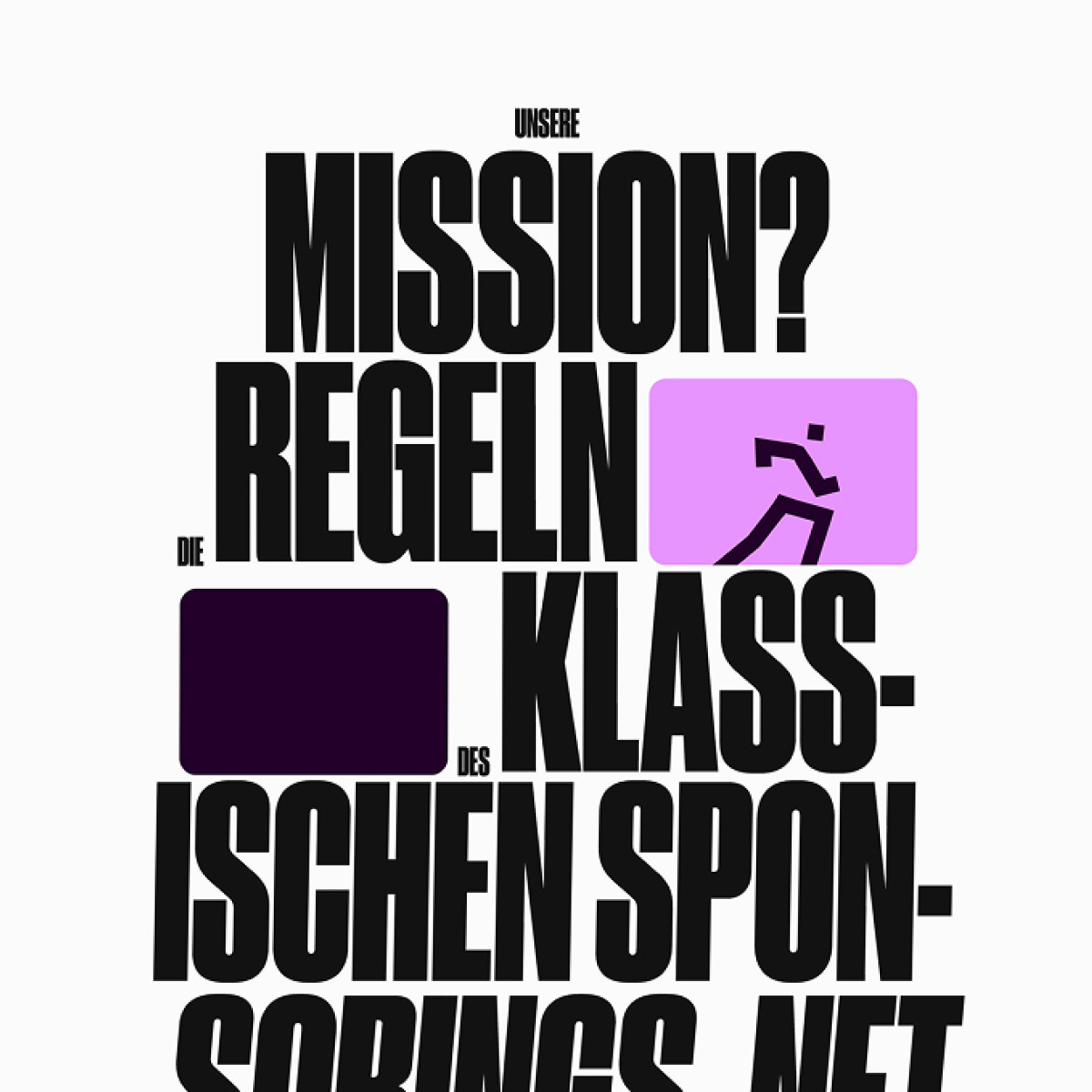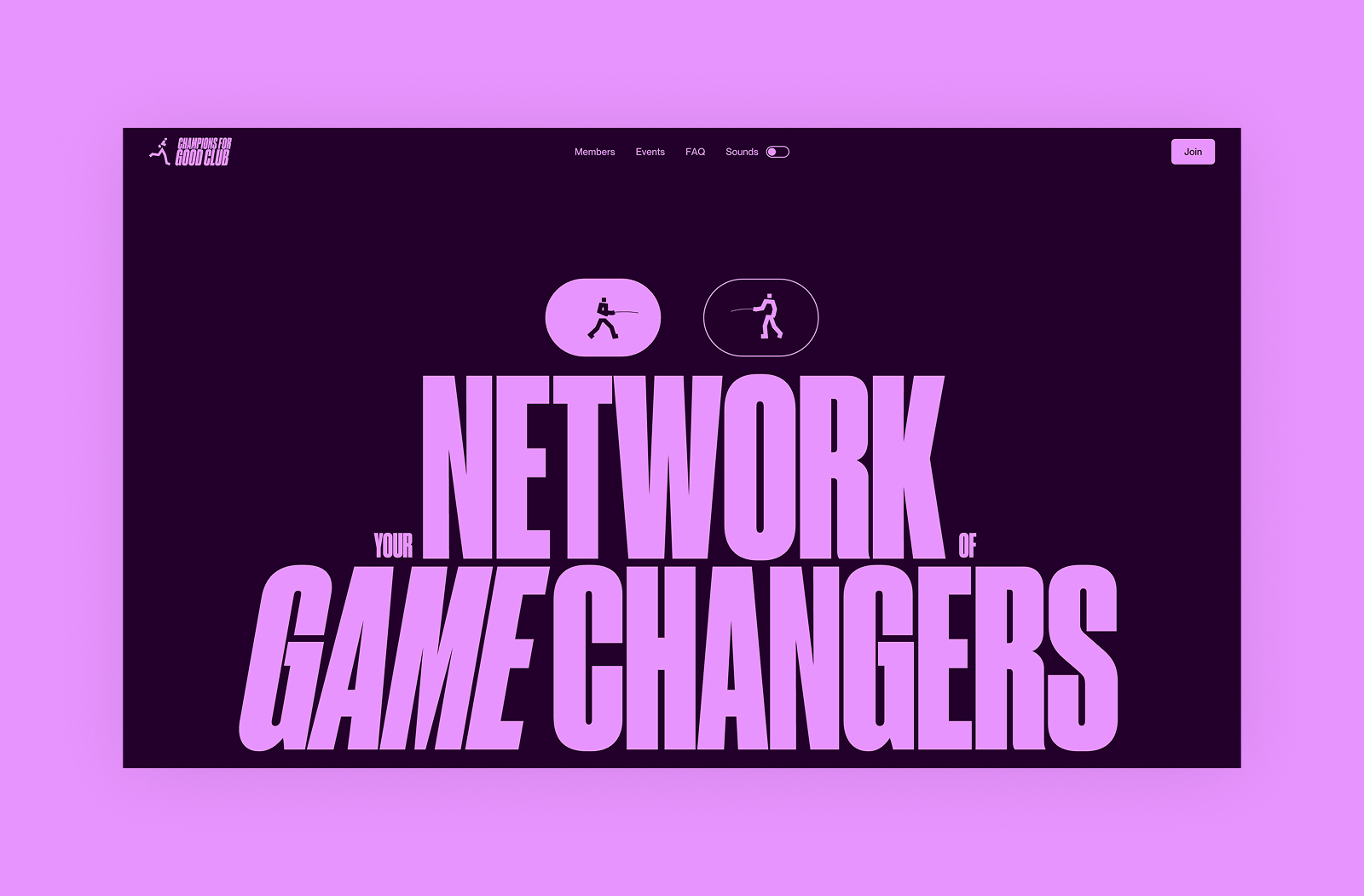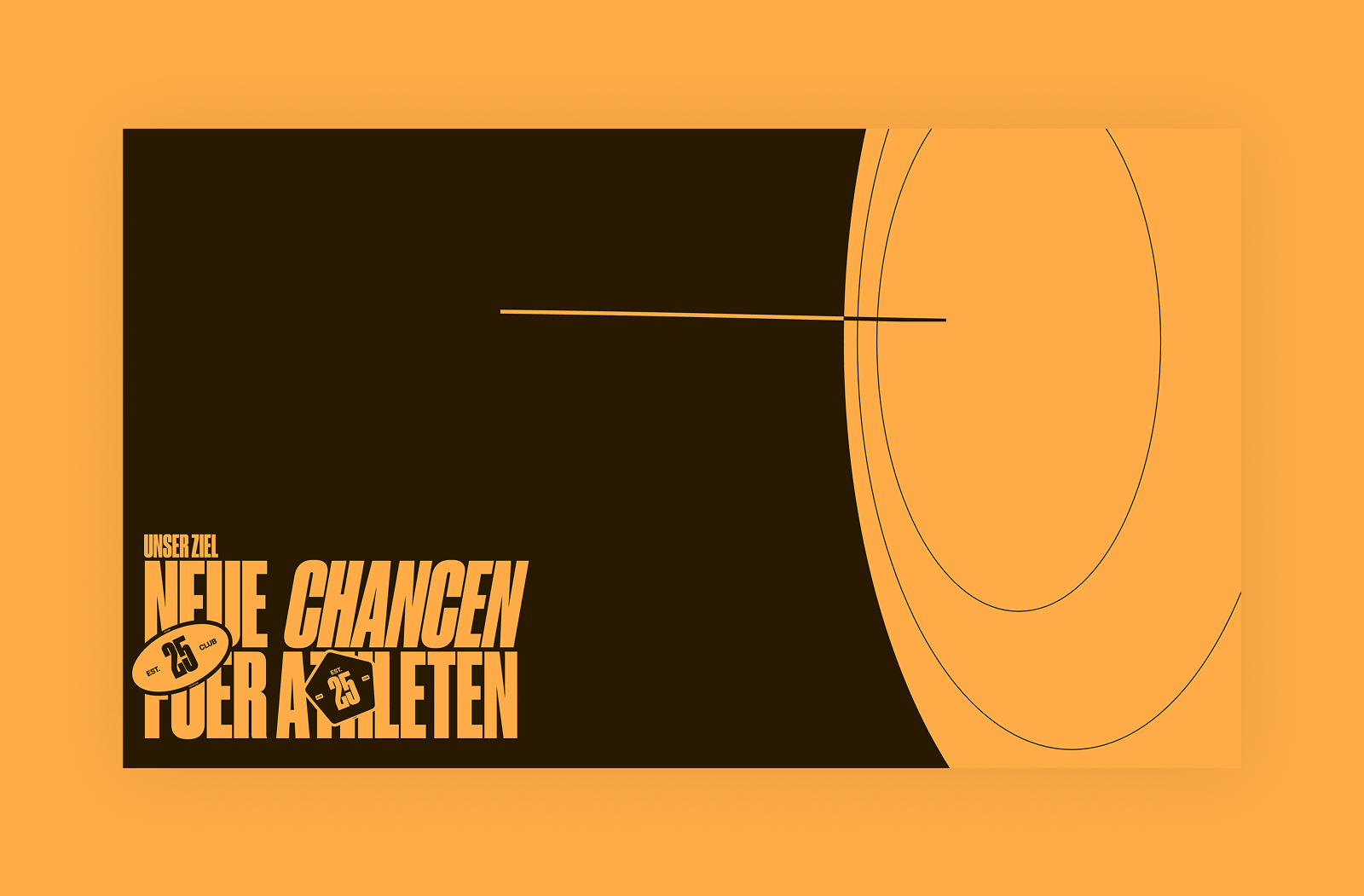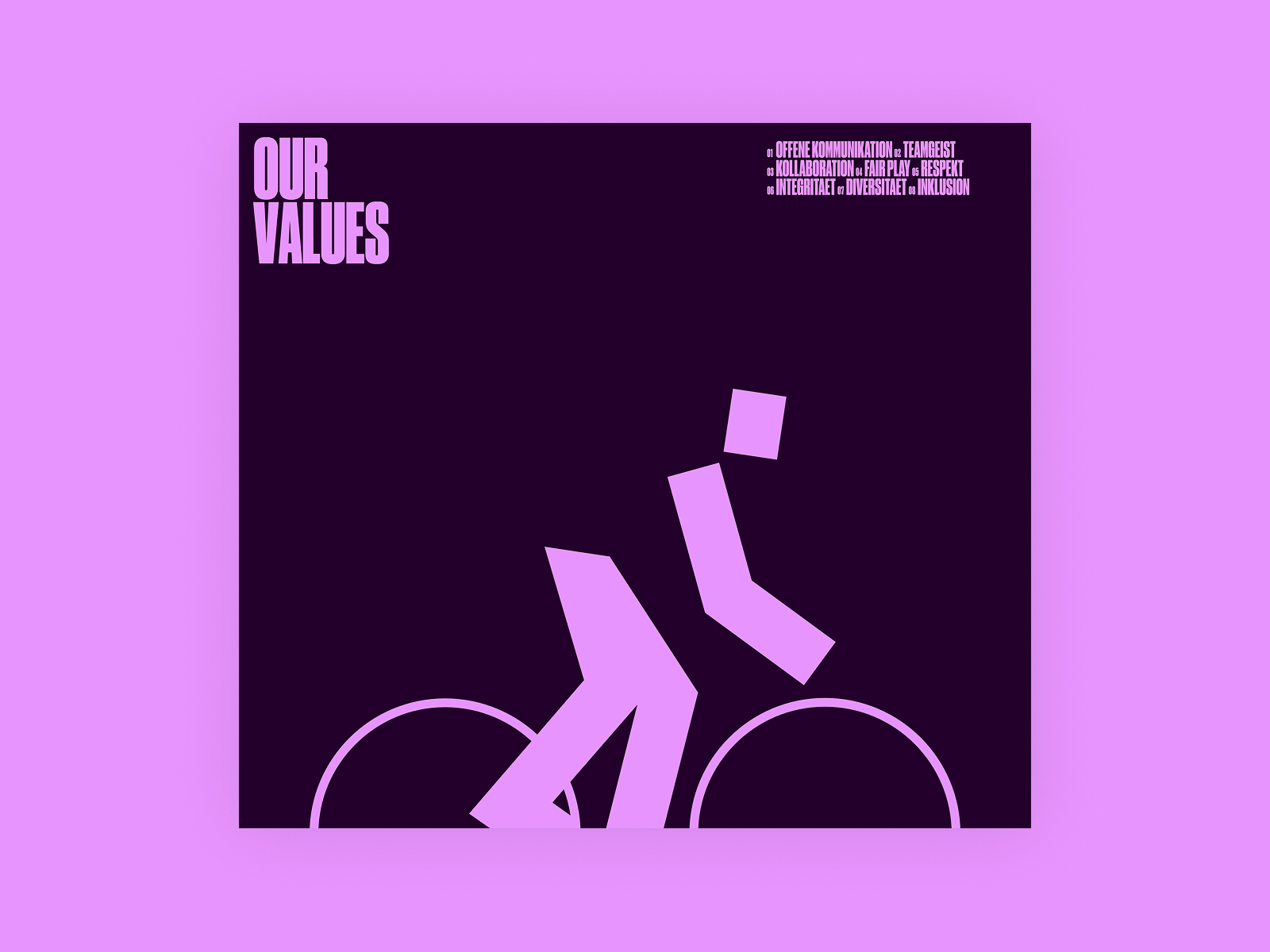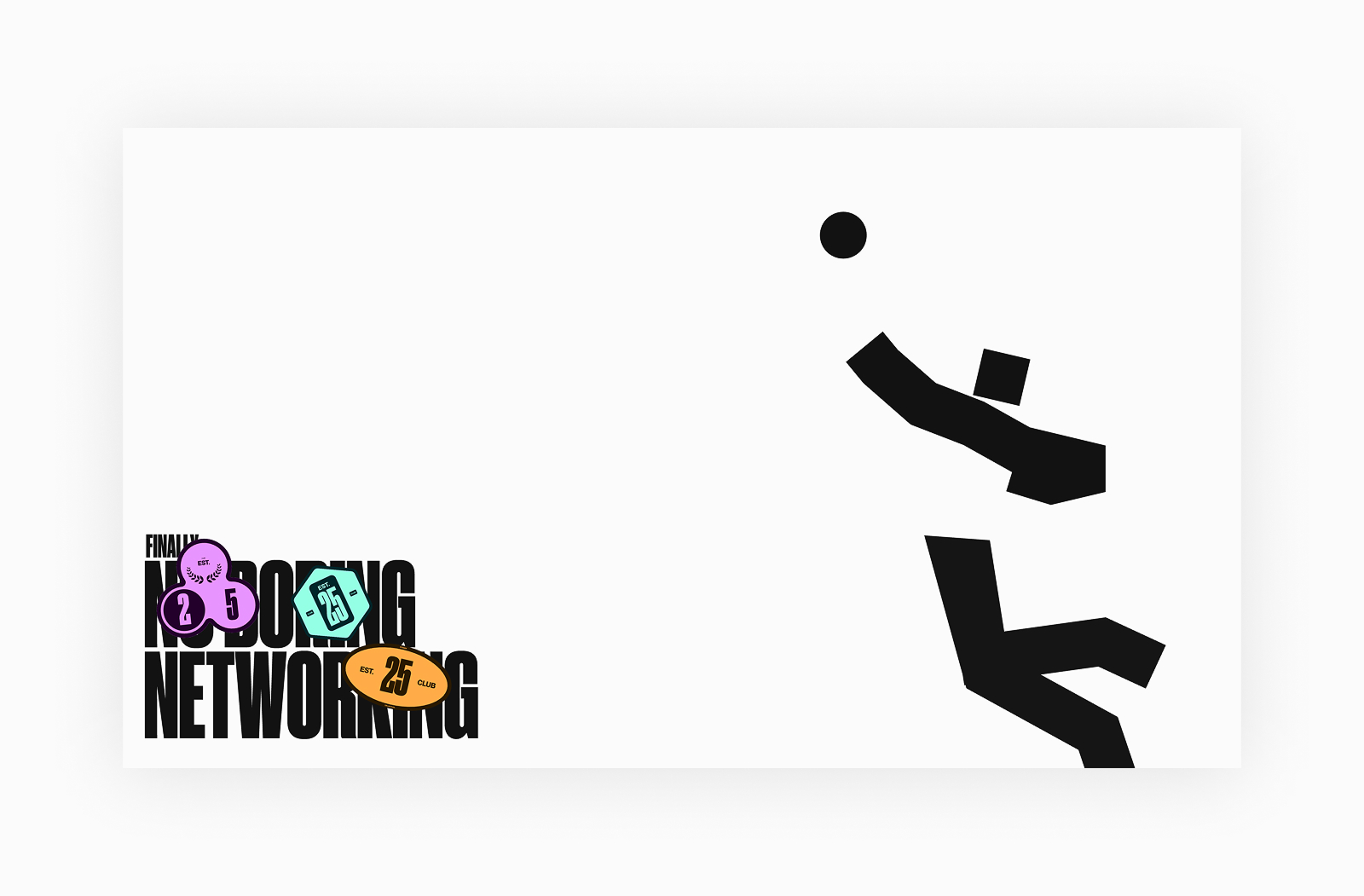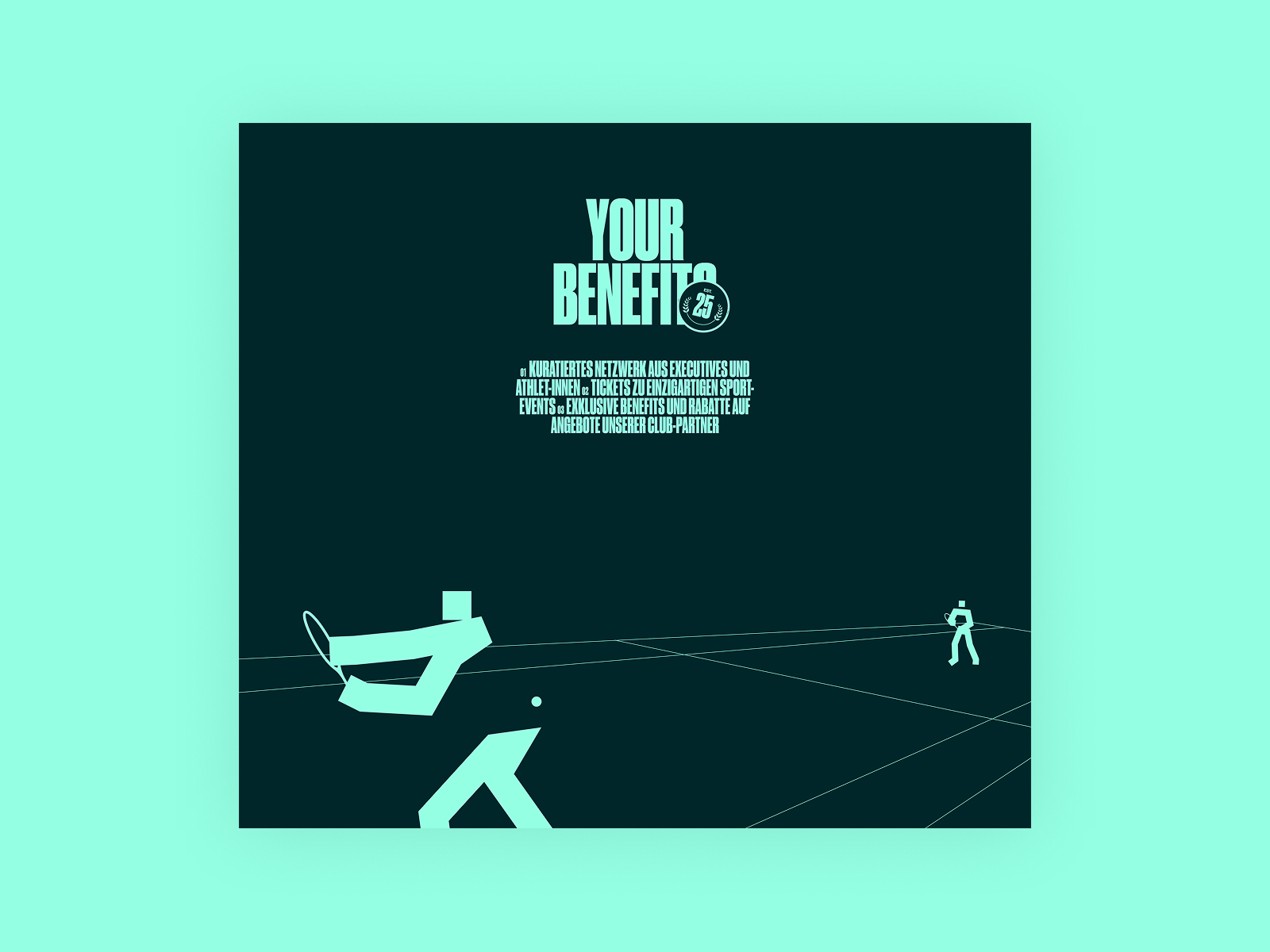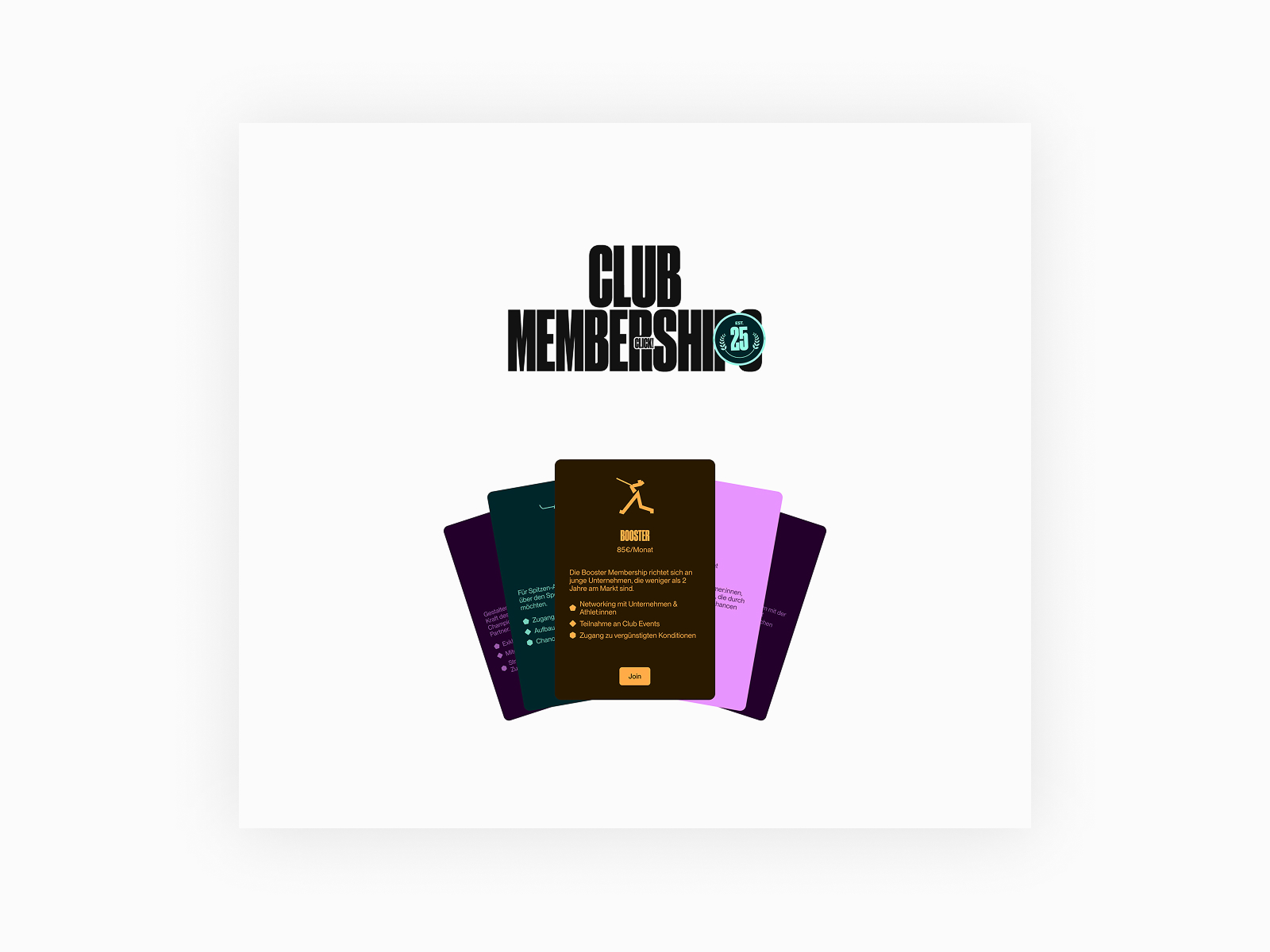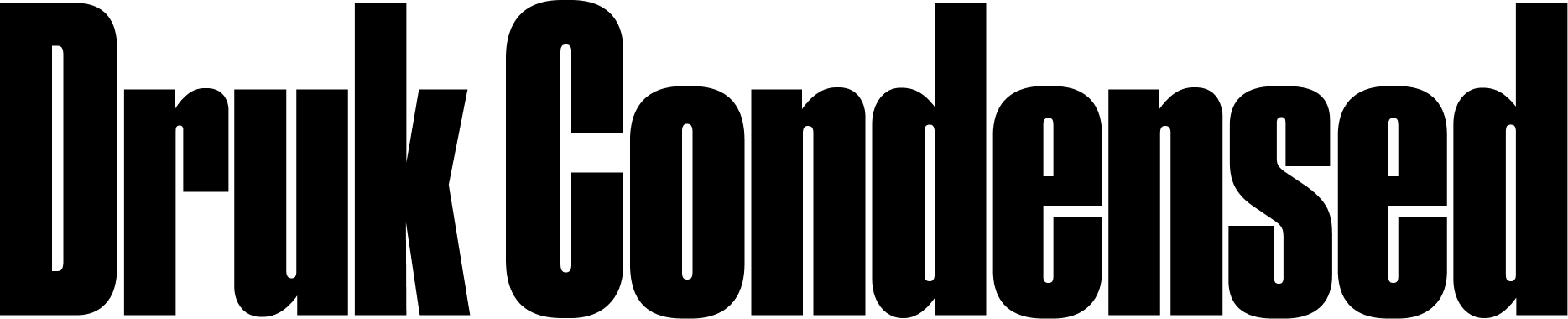
Druk in use: Champions for Good
A club connecting athletes and businesses, helped by the narrow Druk
Champions for Good is a community trying to reinvent the way of finding sponsorship deals for athletes. The organisation holds events where entrepreneurs can socialise with athletes in an informal setting and offer them a partnership or collaboration. The project’s website designed by Double Play uses Druk Condensed by Commercial Type.
Druk is a collection of extremely narrow, extremely wide, and extremely heavy styles created by Berton Hasebe for Bloomberg Businessweek. It was deliberately designed without any styles of regular width or weights lighter than semibold, yet its body text typefaces work great even at the smallest sizes.